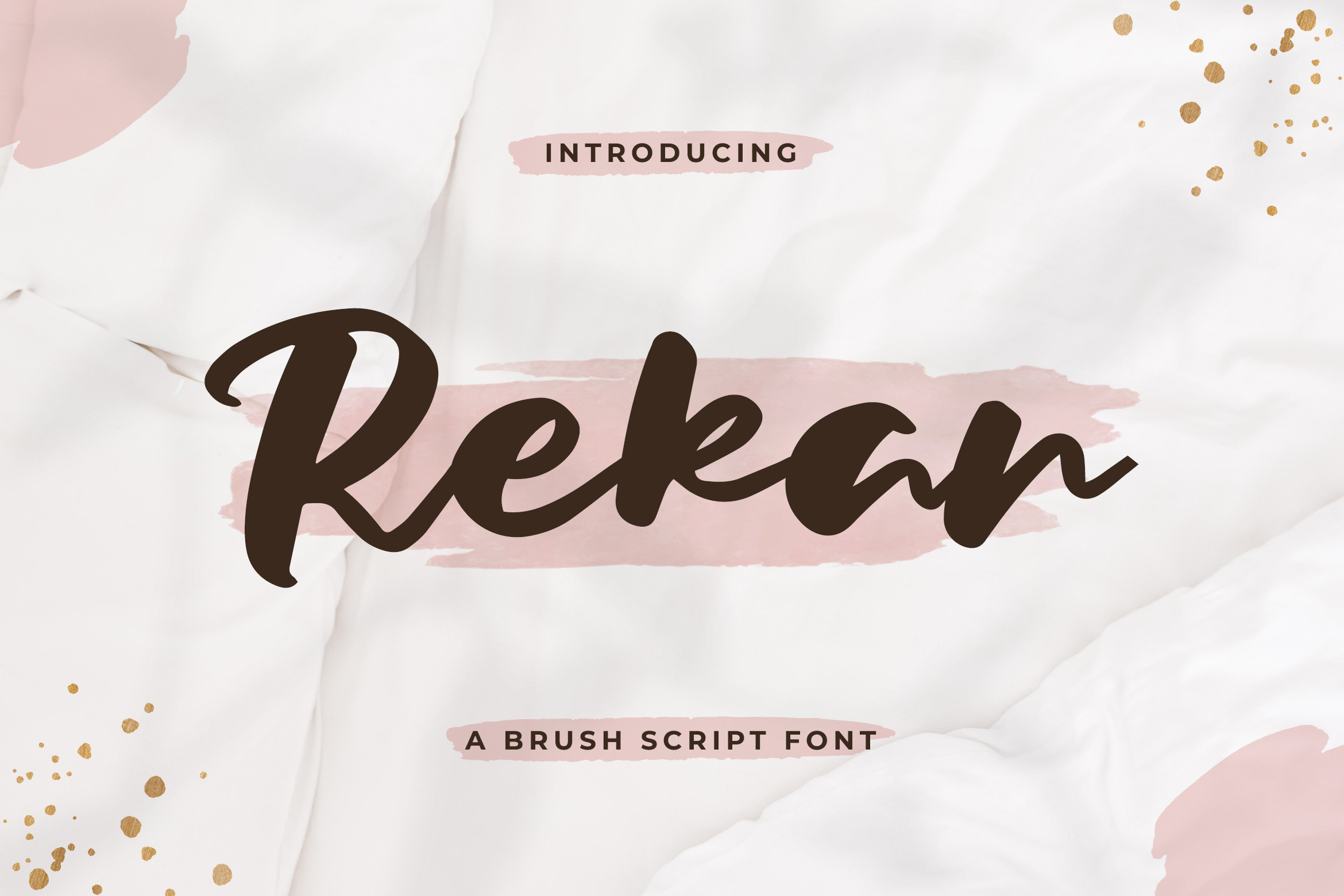
Rekan - Brush Script Font
Rekan is a brush script typeface. Perfectly suitable for creating Brands, Art, lifestyle designs such as logos, title, and magazine,s and more.